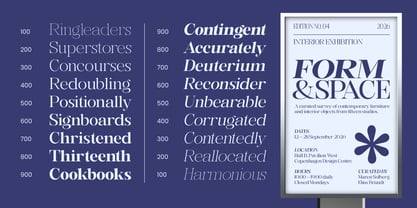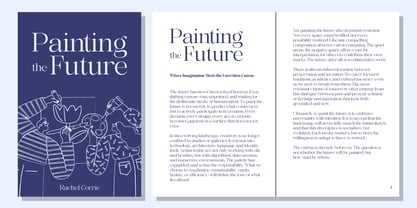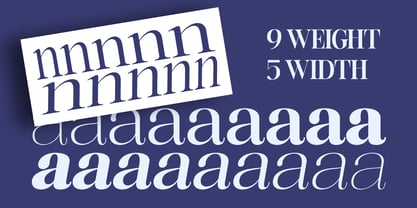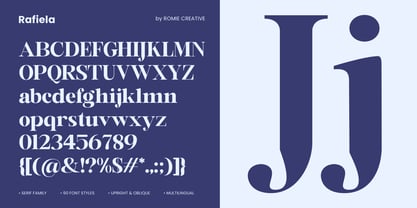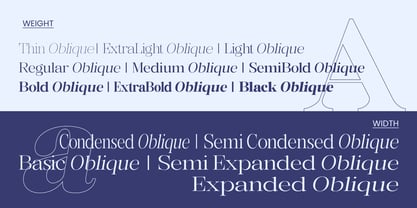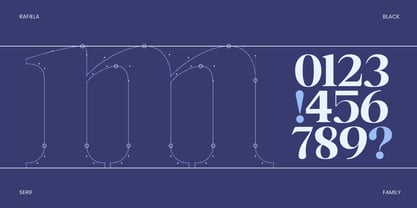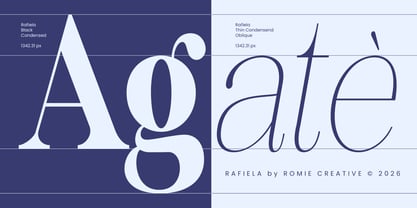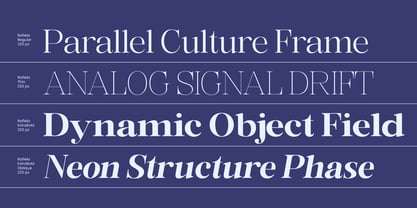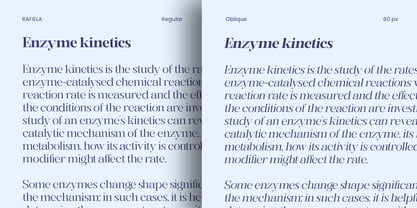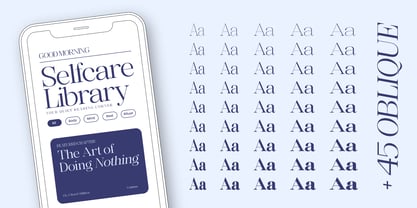
Rafiela
by Romie Creative
The Rafiela Font Family was designed by Romi Rahmadi and published by Romie Creative. Rafiela contains 90 styles and family package options. More about this family
Rafiela is an elegant serif typeface that blends classic sophistication with a modern touch. It features high contrast between thick and thin strokes, creating a refined and graceful appearance. The letterforms are characterized by smooth curves, delicate serifs, and stylish details—especially noticeable in characters like “f” and “a,” which add a distinctive personality. This font is ideal for luxury branding, editorial design, fashion-related projects, and high-end visual identities. Its timeless aesthetic makes it both versatile and visually striking.
Designers: Romi Rahmadi
Foundry: Romie Creative